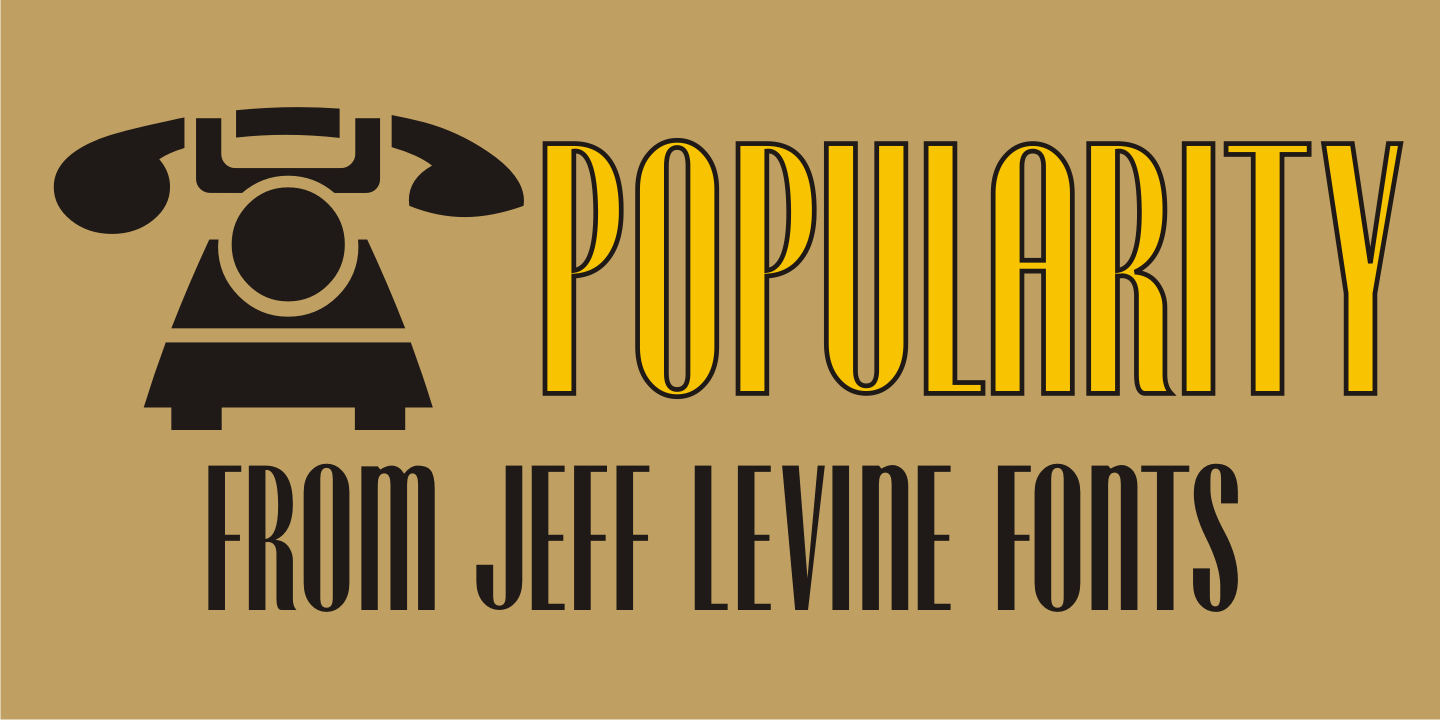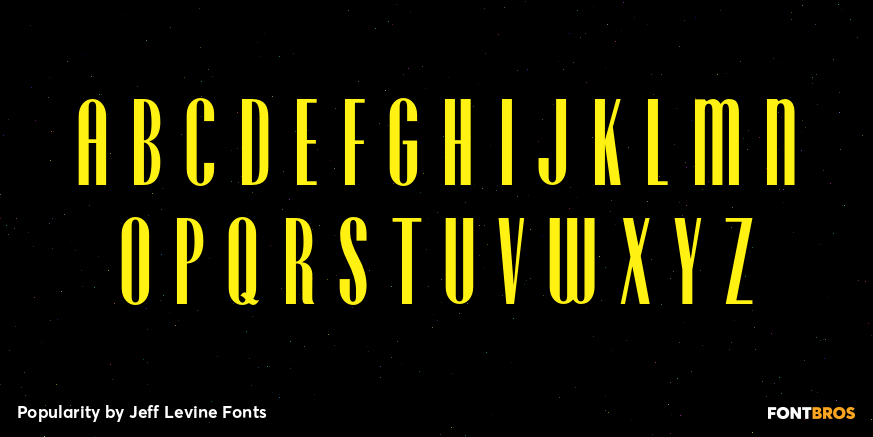
Popularity
Popularity JNL is an all-caps titling font, based (for the most part) on a popular typeface known in some foundry books as 'Radiant'. Many pieces of sheet music from the 1940s engaged this lettering design for their titles, and with some newly-reinterpreted characters, it takes on a fresh look.